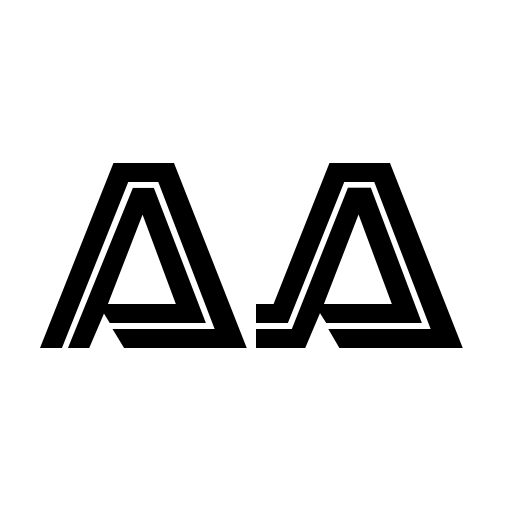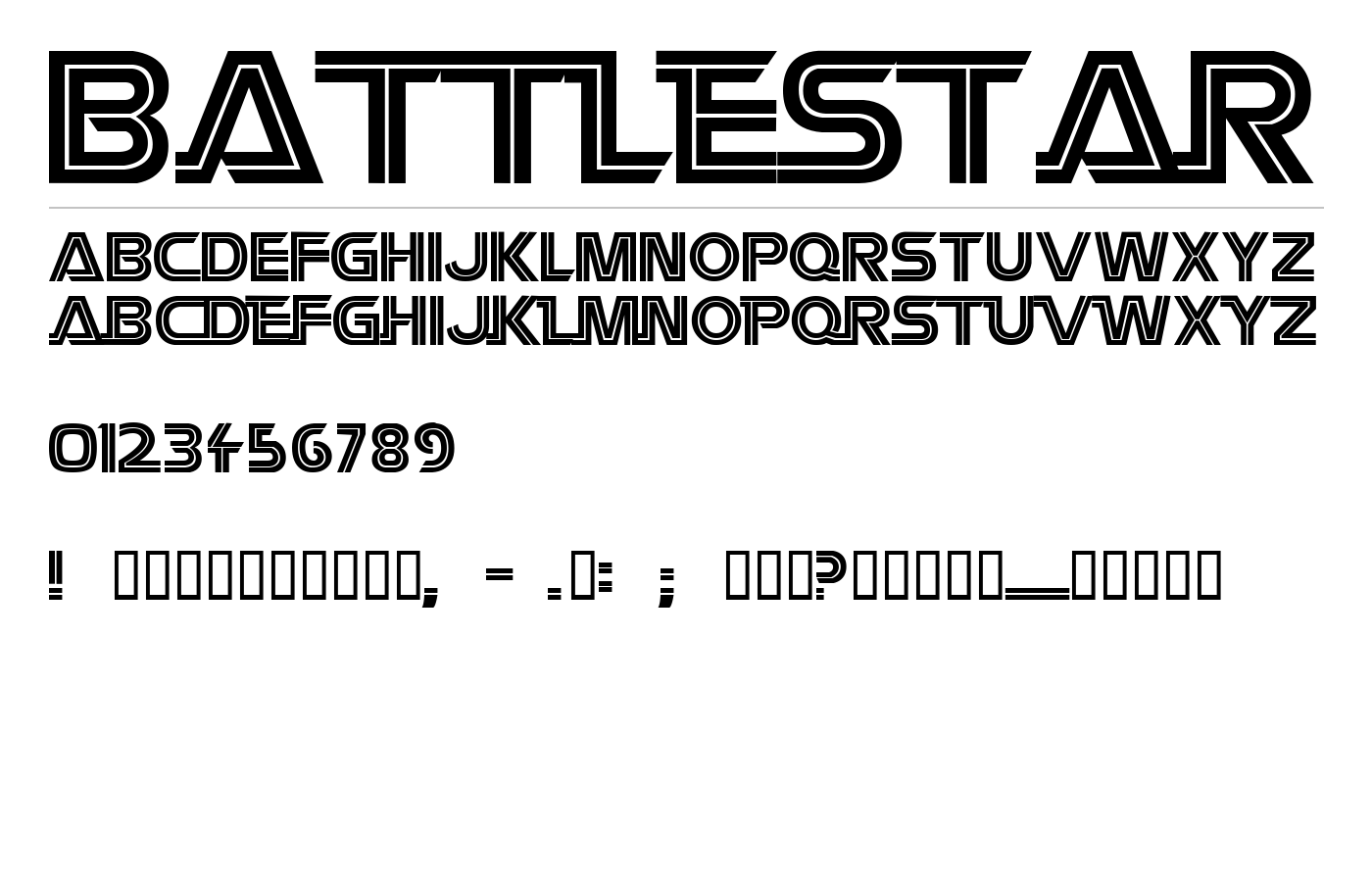
Battlestar is a futuristic, decorative sans serif font with bold, geometric lines and striking double-line detailing that give it a strong, tech-inspired vibe. Its uppercase-only style and tightly spaced letterforms make it perfect for eye-catching headlines, logos, and sci-fi-themed designs, adding an adventurous and modern touch. This font works best where you want to convey energy, innovation, and a sense of bold, dynamic movement.
Battlestar Font
About Battlestar Font